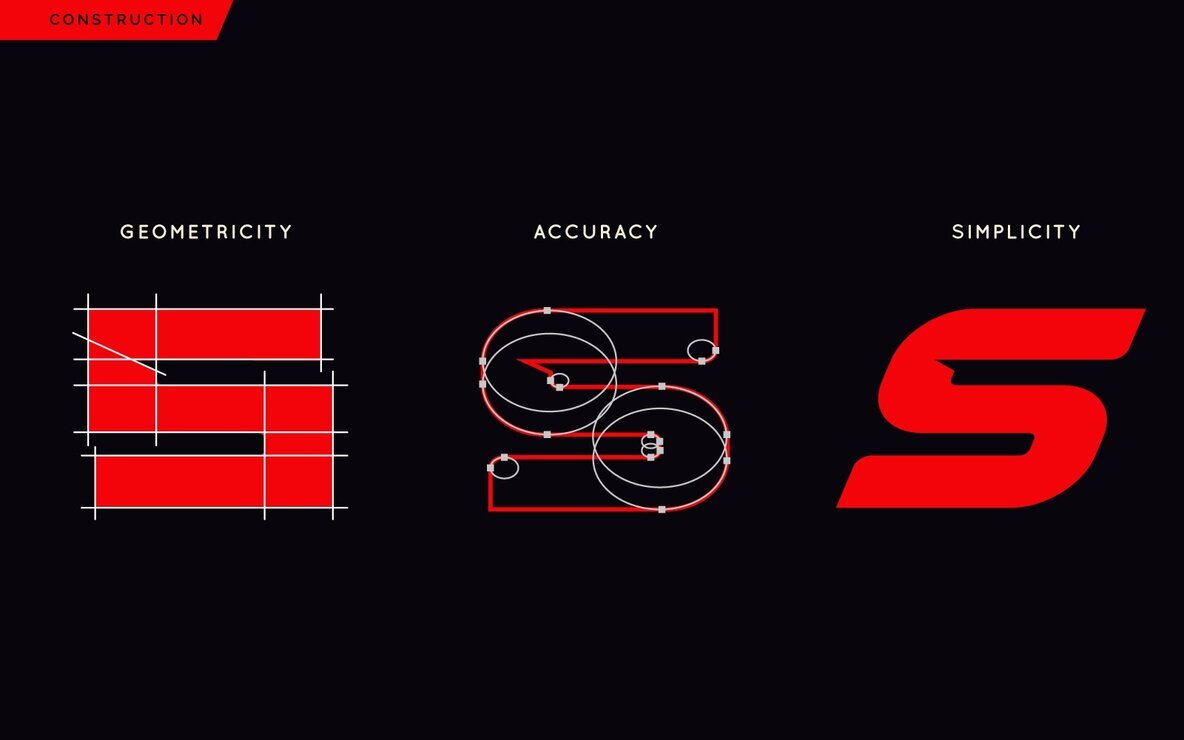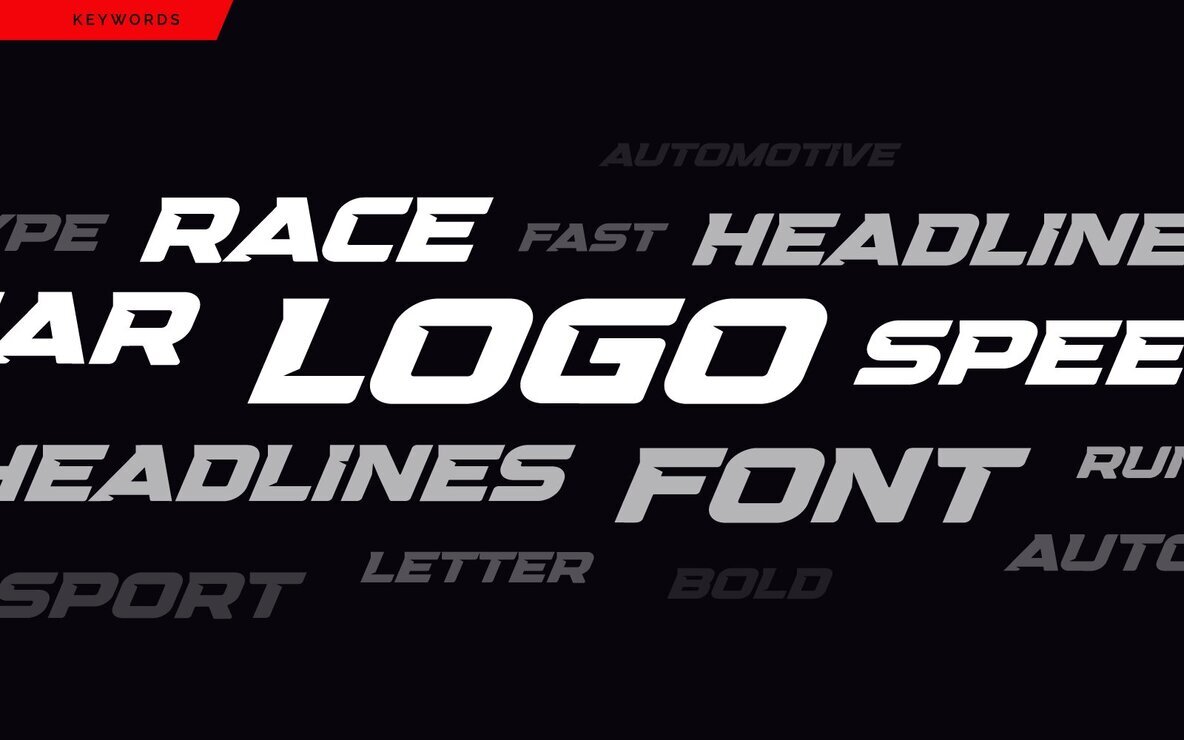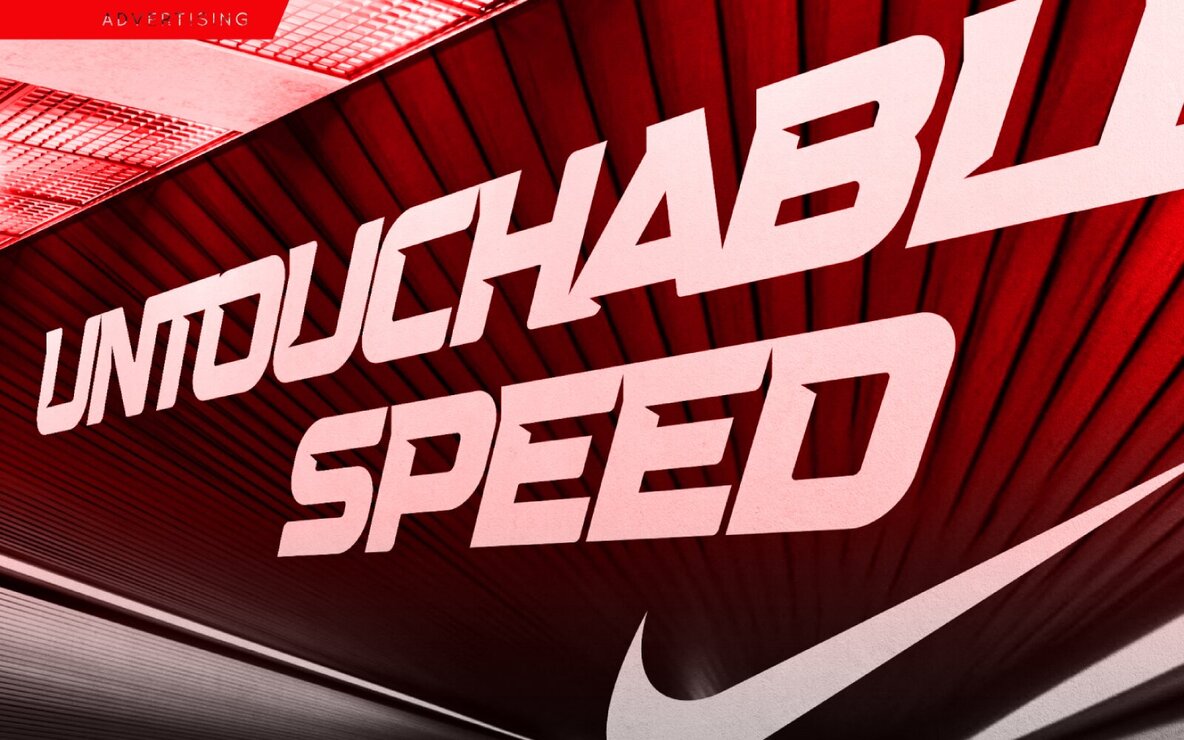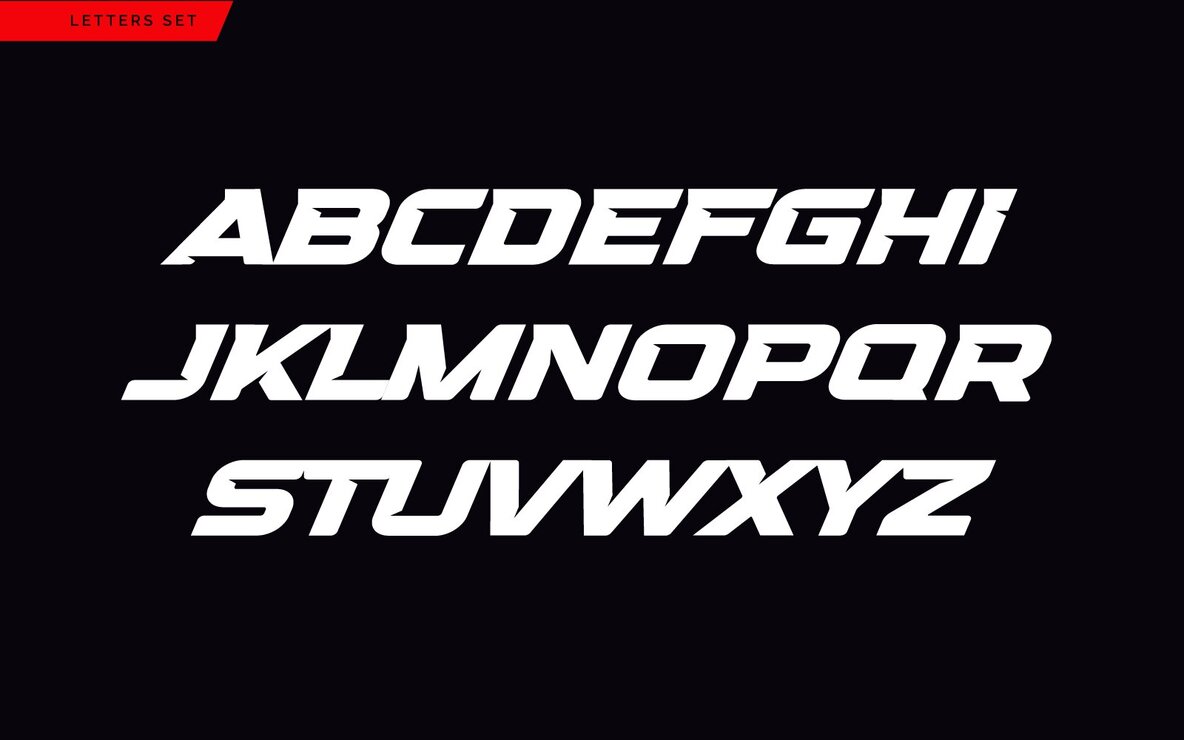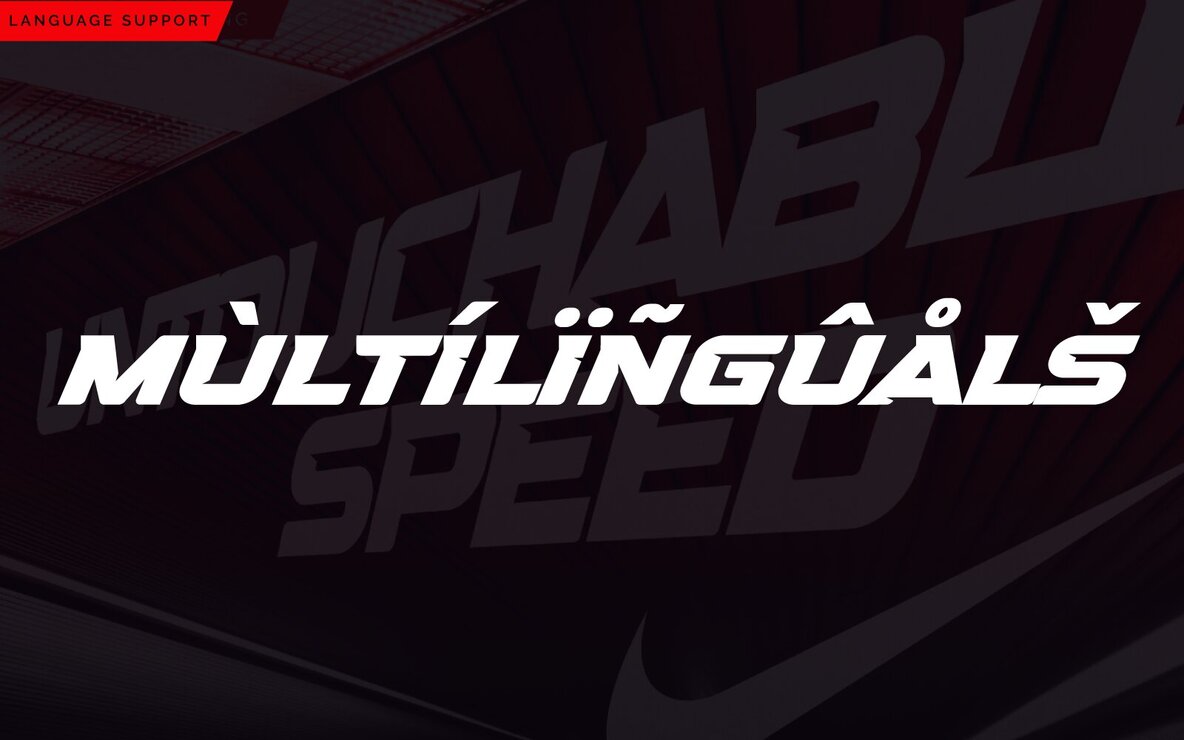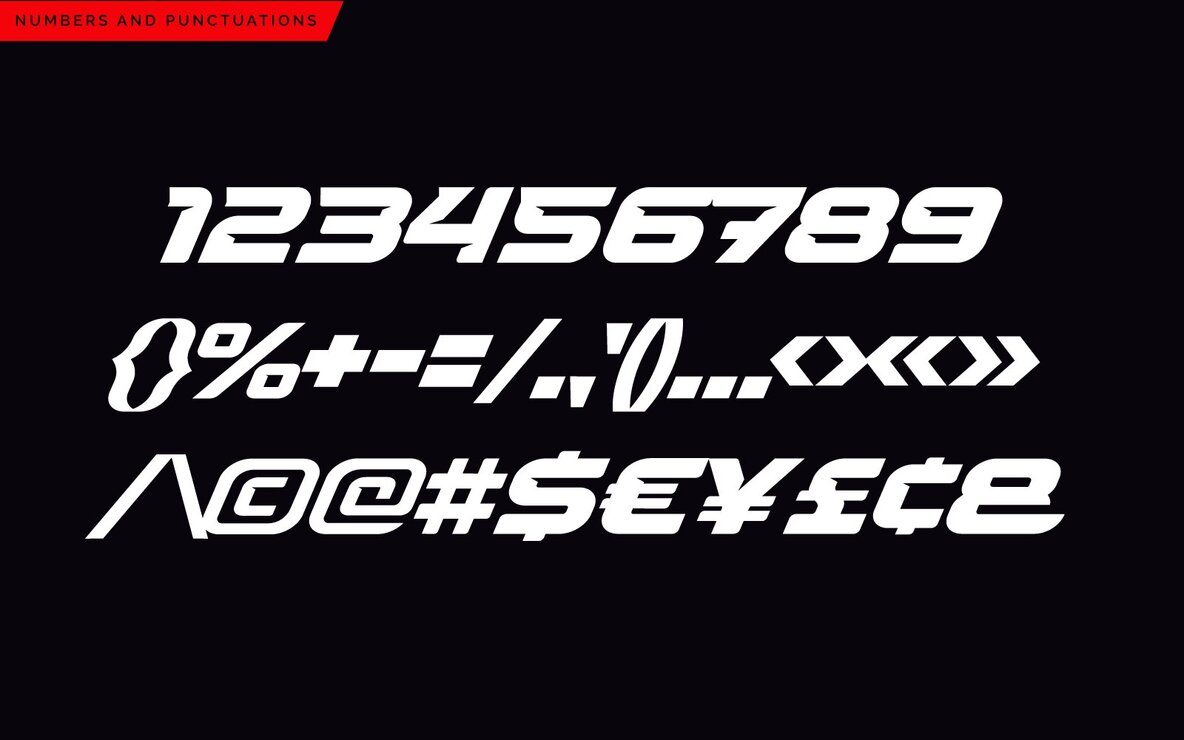
Speed Font
Speed Regular
The Speed font by Yehor Lisnyi is a striking choice for those seeking bold typography. Its sharp corners and dynamic slope deliver a unique charm and exceptional readability.Speed: Bold and Dynamic Typeface